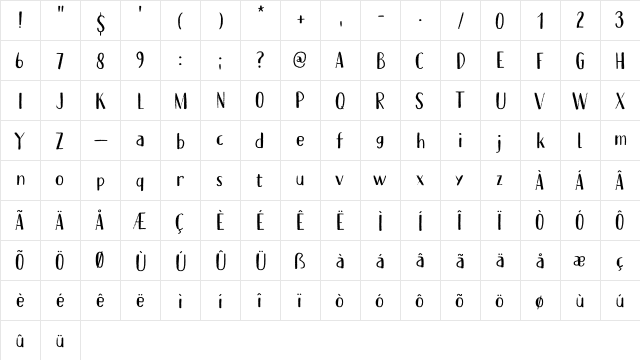
Erstwhile DEMO Regular
Design Context for Erstwhile DEMO Typeface
Erstwhile DEMO is a composed and adaptable typeface that performs quietly and consistently across a wide range of design contexts.
Pro Tip: Use Erstwhile DEMO in both headline and body roles to test its range before committing to a single application.